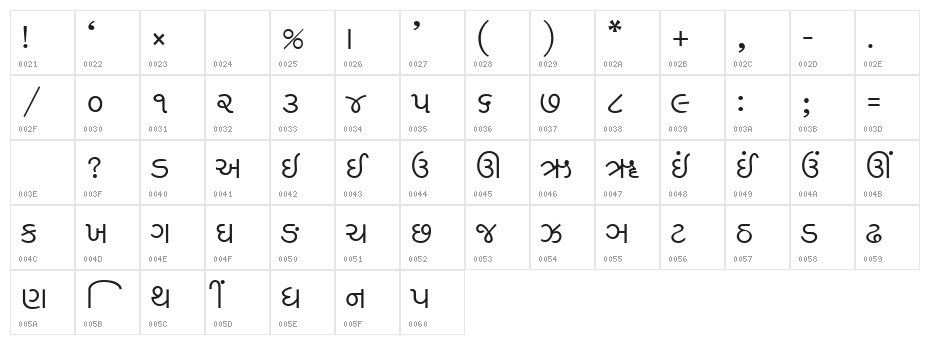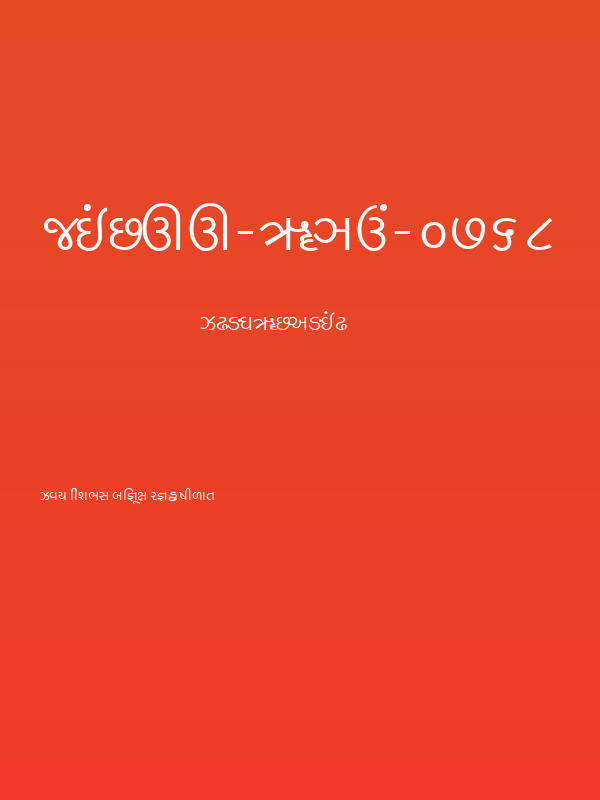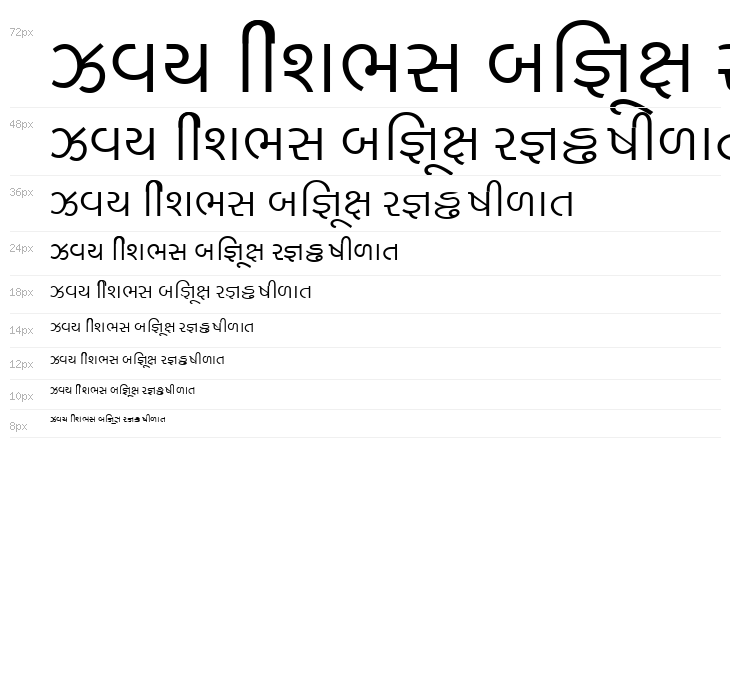
Shree-Guj-0768 Font
Shree-Guj-0768 Description
This font features a clean and modern design with a focus on readability and clarity. The characters are well-defined with smooth curves and consistent stroke widths, making it suitable for both digital and print media. The font includes a full set of Gujarati characters, numerals, and a variety of punctuation marks. Its balanced proportions and open counters enhance legibility, while the uniform stroke weight provides a harmonious appearance. The style is versatile, making it ideal for a range of applications from formal documents to creative projects.